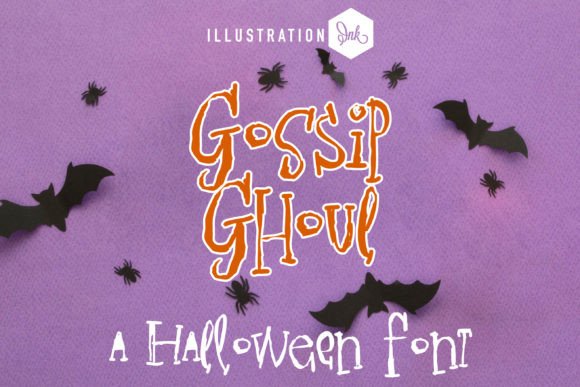
In a realm where imagination meets haunting beauty, where the whispers of the spectral dance through the air, there lies a font that embodies the very essence of Halloween's enchantment - Gossip Ghoul Font. This spirited script, conjured by the artistry of Illustration Ink, is a captivating fusion of the playful and the eerie, ready to cast a spell on your creative endeavors.
Picture this: the flickering flames of jack-o'-lanterns illuminate the night, casting ghostly shadows that dance to the rhythm of this font's bewitching characters. Each stroke, a mischievous stroke of genius, weaves a tale of mystery and mirth, inviting you to embrace the magic of the season.
With Gossip Ghoul Font, you hold the key to unlock a world of spine-tingling designs. Its whimsical charm will enchant party invitations, transforming them into a portal to a realm of haunted revelry. Unleash your creativity and craft posters that evoke the thrill of trick-or-treating, leading little ghosts and goblins on an adventure.
But Gossip Ghoul Font's magic extends beyond the realm of Halloween. Its versatility allows it to transcend the boundaries of the spooky and embrace the realm of the whimsical. Let your imagination run wild as you weave enchanting logos, design spellbinding book covers, or cast a spell of creativity on social media graphics.
So, step into the world of Gossip Ghoul Font, where the magic of Halloween and the power of imagination collide. Embrace the playful spirit of the season, let your creativity soar, and transform your designs into captivating works of art. The haunting beauty of Gossip Ghoul Font awaits, ready to unleash a world of enchantment upon your projects.